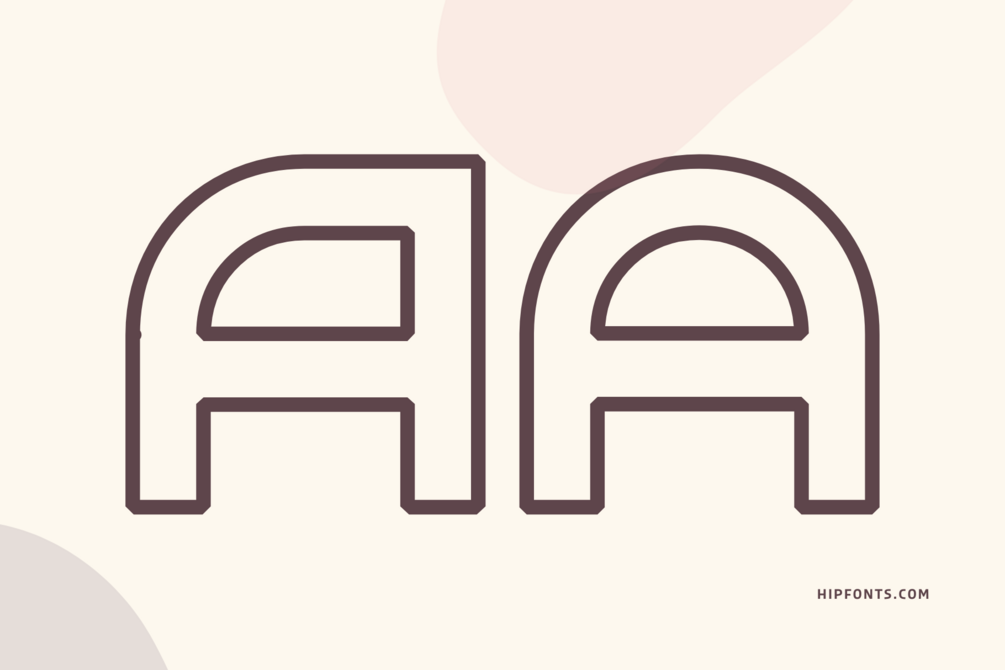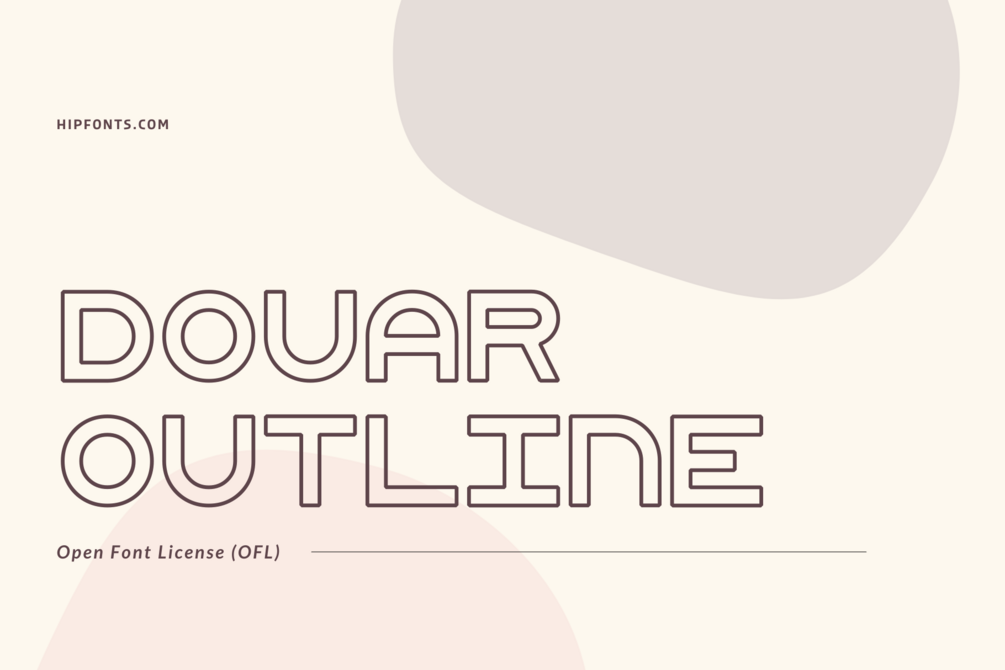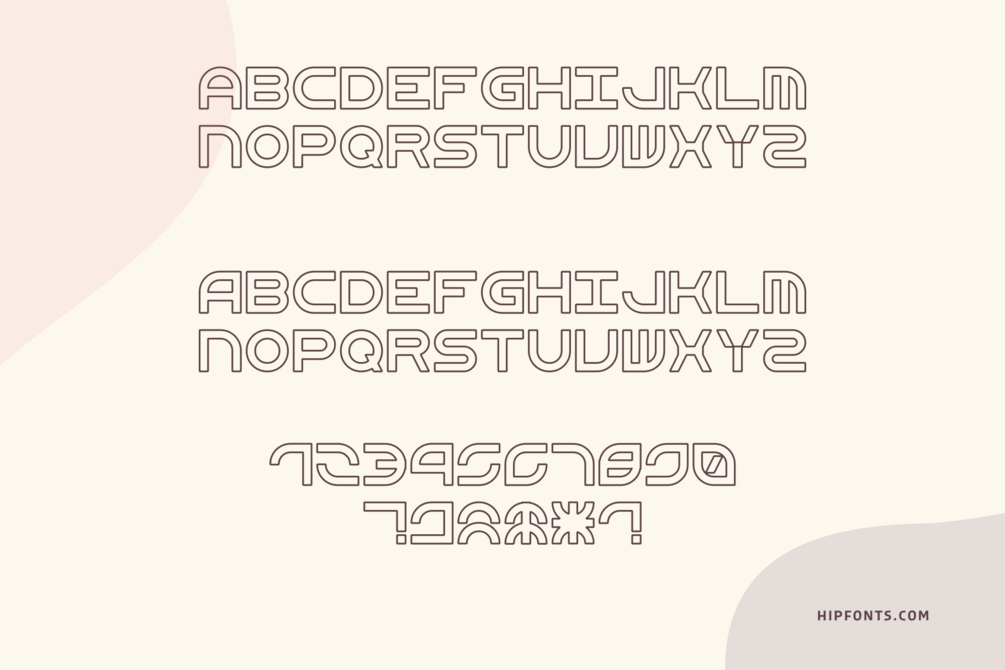
Douar Outline
Douar Outline is a striking font that combines the elegance of calligraphy with a contemporary edge. It is an outline version of Frank Adebiaye's Douar font.
Its unique outline style adds a sense of depth and dimension to the letterforms, creating a visually captivating effect. Whether used in headlines, logos, or artistic designs, Douar Outline stands out with its distinctive and artistic flair.
This font's hand-drawn appearance and irregular contours give it a touch of authenticity and human touch. It evokes a sense of craftsmanship and artistry, making it ideal for projects that aim to convey a personal and creative expression. Douar Outline's versatility shines through in its ability to complement both minimalist and eclectic design styles, offering endless possibilities for imaginative typographic compositions.